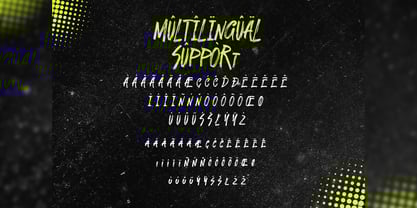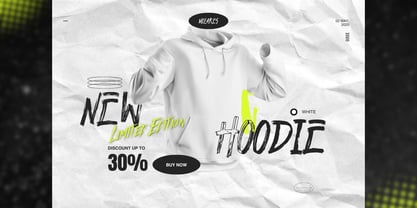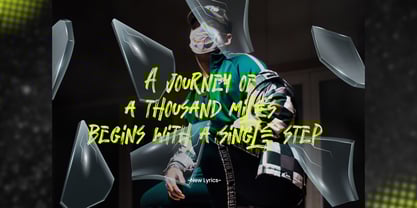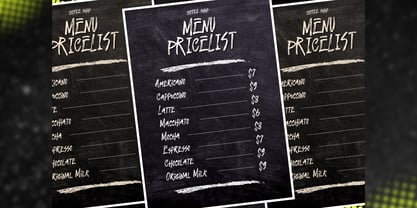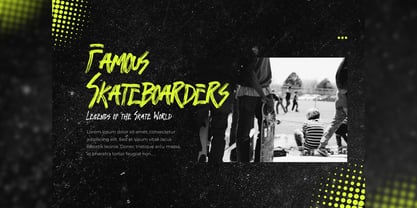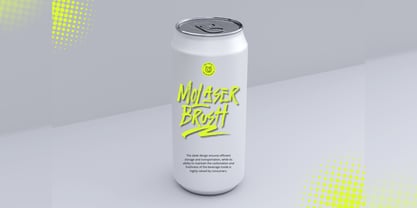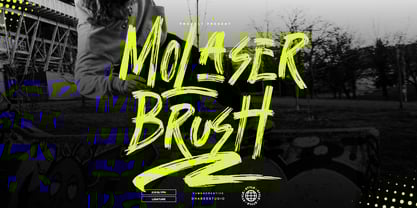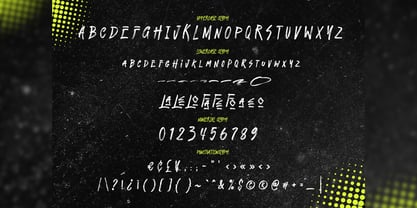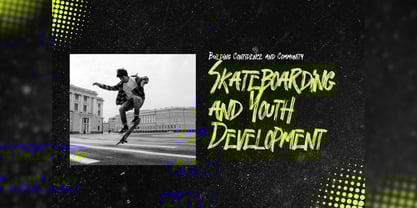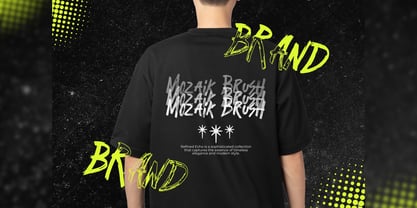
Molaser Brush
by Yumnacreative
The Molaser Brush Font Family was designed by Dhimas Habibie and published by Yumnacreative. Molaser Brush contains 1 styles. More about this family
Introducing Molaser Brush - Ink Brush Font
Molaser Brush - Ink Brush Font which has a hand lettering brush style. So it looks natural like a handmade. This texture is very detailed. This font is suitable for logos, product branding, printable templates or for text overlay to any background image, also suitable for use in title design. Such as apparel, invitations, books tittle, stationery design, quotes, branding, greeting card, t-shirt, packaging design, poster and more!
FEATURES
- Uppercase and Lowercase letters
- ligature
- Numbering and Punctuations
- Multilingual Supports
Designers: Dhimas Habibie
Foundry: Yumnacreative